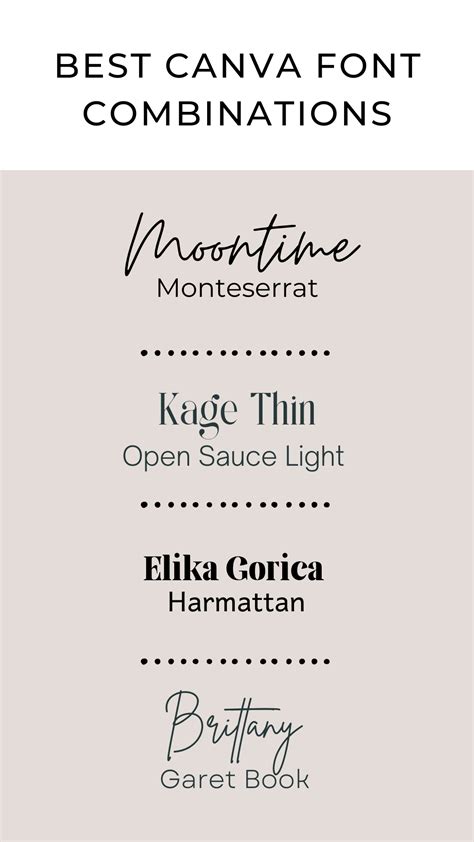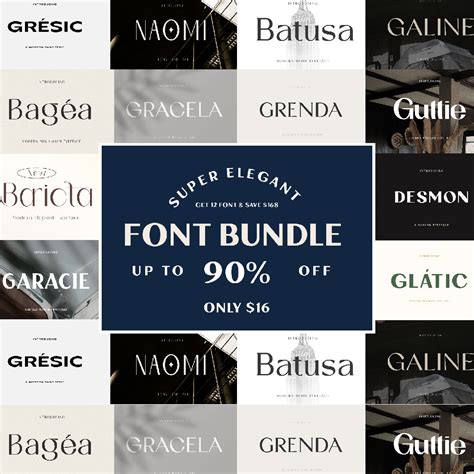
In the fast-paced world of digital design, the deviation between a task that looks amateurish and one that shout professional often comes down to typography. Investing in Premium Fonts is more than just a stylistic choice; it is a strategic conclusion that establish marque individuality, improves legibility, and sets the emotional tone of your employment. While free typeface libraries proffer restroom, they are often overuse, leave in design that miss uniqueness. By select high-quality typefaces, designers ensure their projects stand out in a crowded mart, benefit from superior kerning, encompassing fibre sets, and precise craft that standard web fonts simply can not double.
Why Typography Matters for Brand Identity
Typography is the silent embassador of your brand. When a user lands on your website or looks at a brochure, the fount they meet directly say them whether the marque is honest, playful, deluxe, or mod. Using Premium Fonts allows for a higher level of customization that adjust absolutely with your make vocalism.
The Technical Edge of Professional Typefaces
Beyond aesthetics, high-quality fonts are engineered for performance. Developer and designers often bump number with free fonts, such as miss glyphs or poor rendering on high-resolution screens. Professional eccentric foundries ensure their product are:
- Optimized for Web: They charge efficiently without compromise page speed.
- Equipped with Opentype Features: Including ligature, alternative glyphs, and small cap.
- Supportive of Multiple Languages: Volunteer encompassing character sets that include idiom and exceptional symbol for worldwide markets.
Selecting the Right Typeface for Your Project
Take the perfect font involve balancing personality with utility. For body copy, prioritize legibility; for headline, aspect for typefaces with fiber and wallop. Consider these steps when selecting your future typeface:
- Name the Project Scope: Is it for a mark campaign, a mobile app, or a corporate branding deck?
- Evaluate Font Menage: Look for baptistry that volunteer a entire range of weight (light, regular, bold, black) and styles (italic, distil).
- Examination for Scalability: Ensure the baptistry continue open at very minor size and retains its distinguishable lineament at large presentation size.
💡 Tone: A full-bodied font class with diverse weight let for best visual hierarchy without needing to mix too many different baptistry style.
The journeying to superior designing begins with the smallest details, and typography is arguably the most significant of these. By moving beyond the limitation of measure or free choice, creators unlock a vast library of expressive, technically levelheaded, and various typefaces that elevate every projection. Whether you are construct a new make identity, designing a sophisticated interface, or creating compelling column substance, the correct fount service as the foot of visual communication. Endue in quality assets not merely streamlines your workflow by supply cleaner, more functional files but also ensures that your employment maintains a professional edge that vibrate with your intended audience. Ultimately, the punctilious option of eccentric transforms full pattern into exceeding visual storytelling that stand the test of time.